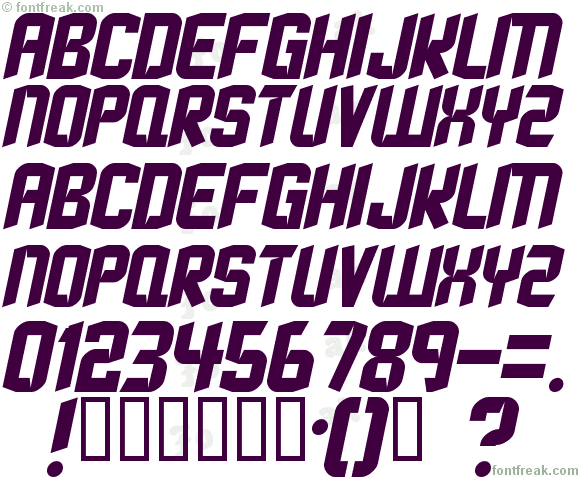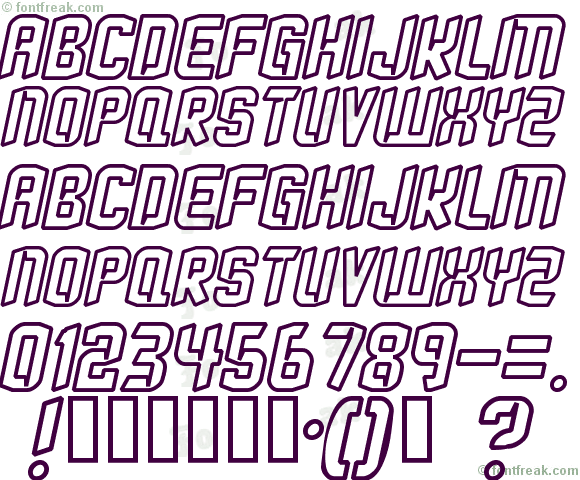
StrangePhenomena outlined
StrangePhenomena normal
StrangePhenomena outlined — Character Map
StrangePhenomena normal — Character Map
About Strange Phenomena
Strange Phenomena by Pizzadude is a captivating display font that falls within the decorative category. Its unique outlined structure gives it a whimsical yet bold appearance, perfect for capturing attention in a variety of creative projects. The font features a balanced stroke weight, allowing it to stand out without overwhelming the viewer. With its playful design elements and slightly irregular shapes, Strange Phenomena evokes a sense of curiosity and intrigue, making it ideal for projects that require a touch of the unconventional.
Visually, the Strange Phenomena font displays a harmonious contrast between thick and thin strokes, which adds depth while maintaining readability. The spacing is thoughtfully crafted, ensuring that each character maintains its individuality while still forming cohesive words. This aspect makes it versatile for various applications, from eye-catching headlines to captivating logo designs.
The best use cases for Strange Phenomena include movie posters that aim to convey a sense of mystery, quirky invitations for themed parties, vibrant restaurant menus that want to showcase a fun atmosphere, and even creative branding for small businesses looking to make a memorable impression. Graphic designers, small business owners, and content creators will find this font particularly appealing as they seek to add a unique flair to their work.
What sets the Strange Phenomena font apart is its ability to blend playful creativity with practical usability. This font invites viewers to explore the projects it adorns, making it a perfect choice for anyone looking to convey a sense of wonder and originality. If you're interested in adding this distinctive typeface to your collection, you can easily find the Strange Phenomena font free download online, allowing you to unleash your creativity without breaking the bank.